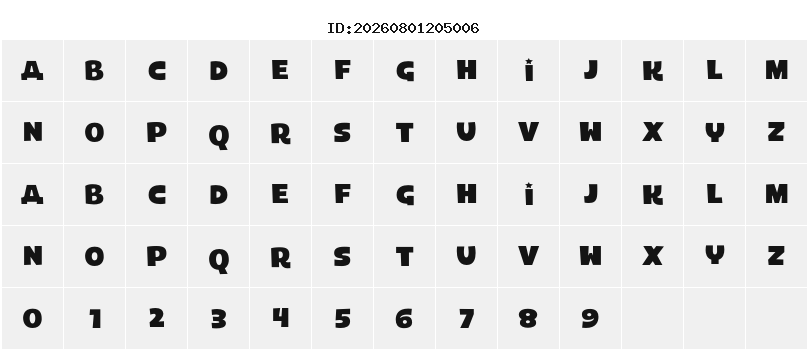
• Font Name: LAIKA
• Manufacturer: Rodrigo Araya Salas
About LAIKA.otf
LAIKA.otf is a modern, elegant sans-serif font designed for ultimate readability and visual harmony. Perfect for branding, headlines, web design, and print materials.